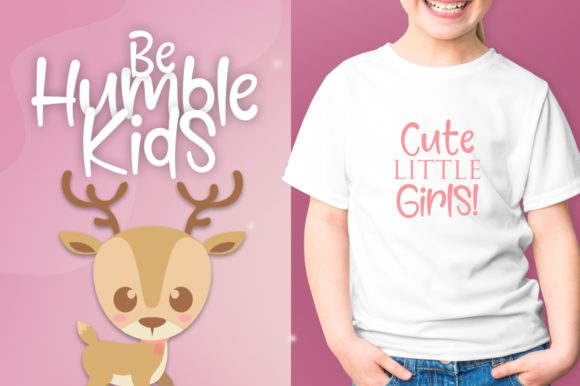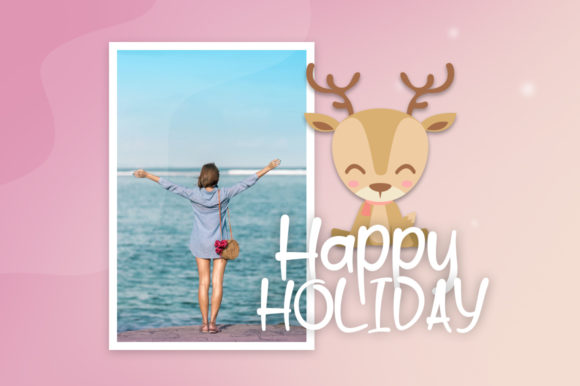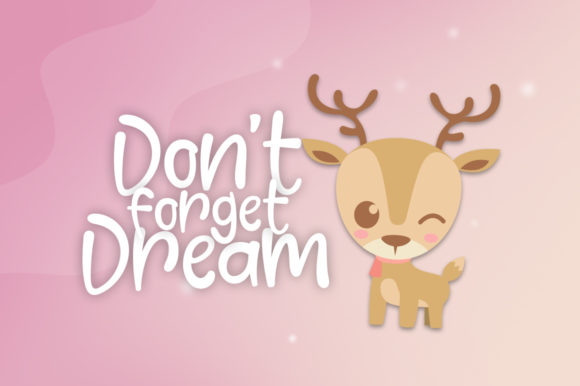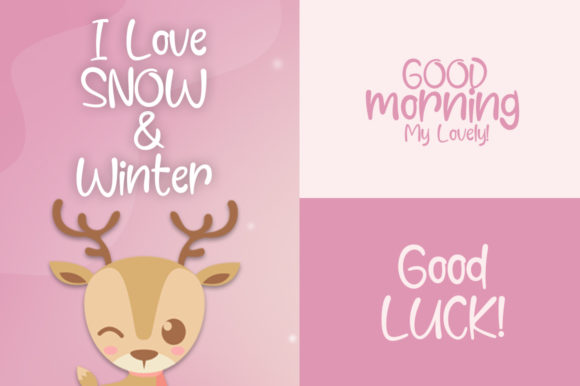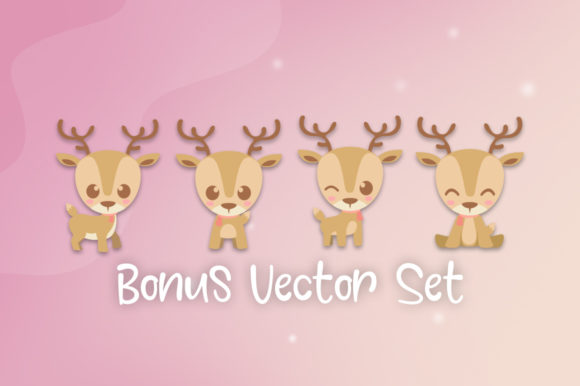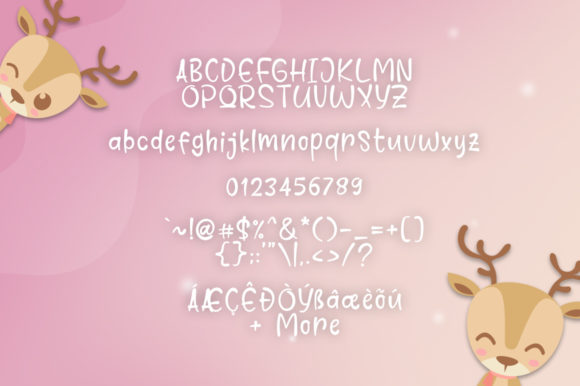
Introducing Comet Deer: The Ultimate Winter Wonderland Font for Your Holiday Designs
As the winter season approaches, designers and crafters are on the lookout for the perfect typography to add a touch of festive cheer to their projects. If you’re searching for a font that embodies the spirit of the holiday season, look no further than Comet Deer. This delightful winter-themed display typeface is designed to bring a smile to your face and a dash of joy to your Christmas-themed designs.
What is Comet Deer Font?
Comet Deer is a unique and cheerful display font that captures the essence of the winter season. With its playful and whimsical design, this font is perfect for adding a holiday feel to any design project. Whether you’re working on a Christmas card, a winter-themed poster, or a festive social media graphic, Comet Deer is the ideal choice.
Key Features of Comet Deer Font
- Winter-themed design: Comet Deer features a delightful winter-themed design that’s sure to get you in the holiday spirit.
- Cheerful theme: This font boasts a cheerful theme that’s perfect for adding a touch of joy to your designs.
- Display typeface: Comet Deer is a display typeface designed to make a statement and add a touch of elegance to your projects.
- Easy to use: This font is easy to use and can be incorporated into a variety of design projects, from digital graphics to print materials.
Why Choose Comet Deer Font?
So, why choose Comet Deer font for your holiday designs? Here are just a few reasons:
- Adds a touch of whimsy: Comet Deer adds a touch of whimsy and playfulness to your designs, making them stand out from the crowd.
- Perfect for holiday projects: This font is specifically designed for holiday projects, making it the perfect choice for Christmas cards, posters, and more.
- Versatile: Comet Deer can be used in a variety of design projects, from digital graphics to print materials.
- High-quality design: This font features a high-quality design that’s sure to impress.
How to Use Comet Deer Font in Your Designs
Using Comet Deer font in your designs is easy. Here are a few tips to get you started:
- Pair with complementary fonts: Pair Comet Deer with complementary fonts to create a unique and visually appealing design.
- Experiment with colors: Experiment with different colors and textures to add depth and interest to your design.
- Use in combination with graphics: Use Comet Deer in combination with winter-themed graphics, such as snowflakes or reindeer, to create a cohesive design.
Tips and Tricks for Working with Comet Deer Font
Here are a few tips and tricks to keep in mind when working with Comet Deer font:
- Use for headlines and titles: Comet Deer is perfect for headlines and titles, where you want to make a bold statement.
- Experiment with font sizes: Experiment with different font sizes to create visual interest and hierarchy in your design.
- Don’t be afraid to get creative: Don’t be afraid to get creative and try new things with Comet Deer. Its playful design makes it the perfect choice for experimenting with different design ideas.
Comet Deer font is the perfect choice for designers and crafters looking to add a touch of holiday cheer to their winter-themed designs. With its playful and whimsical design, this font is sure to bring a smile to your face and a dash of joy to your projects. Whether you’re working on a Christmas card, a winter-themed poster, or a festive social media graphic, Comet Deer is the ideal choice. So why wait? Download Comet Deer font today and start creating your own winter wonderland designs!